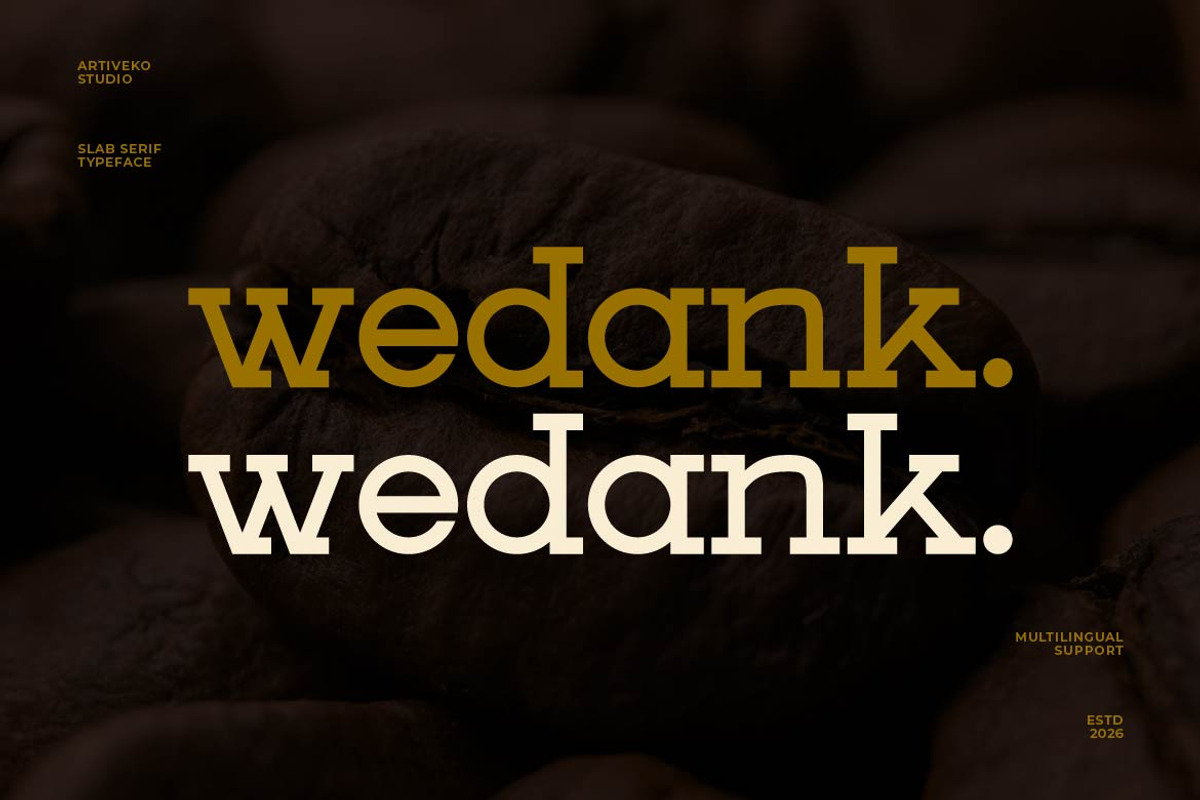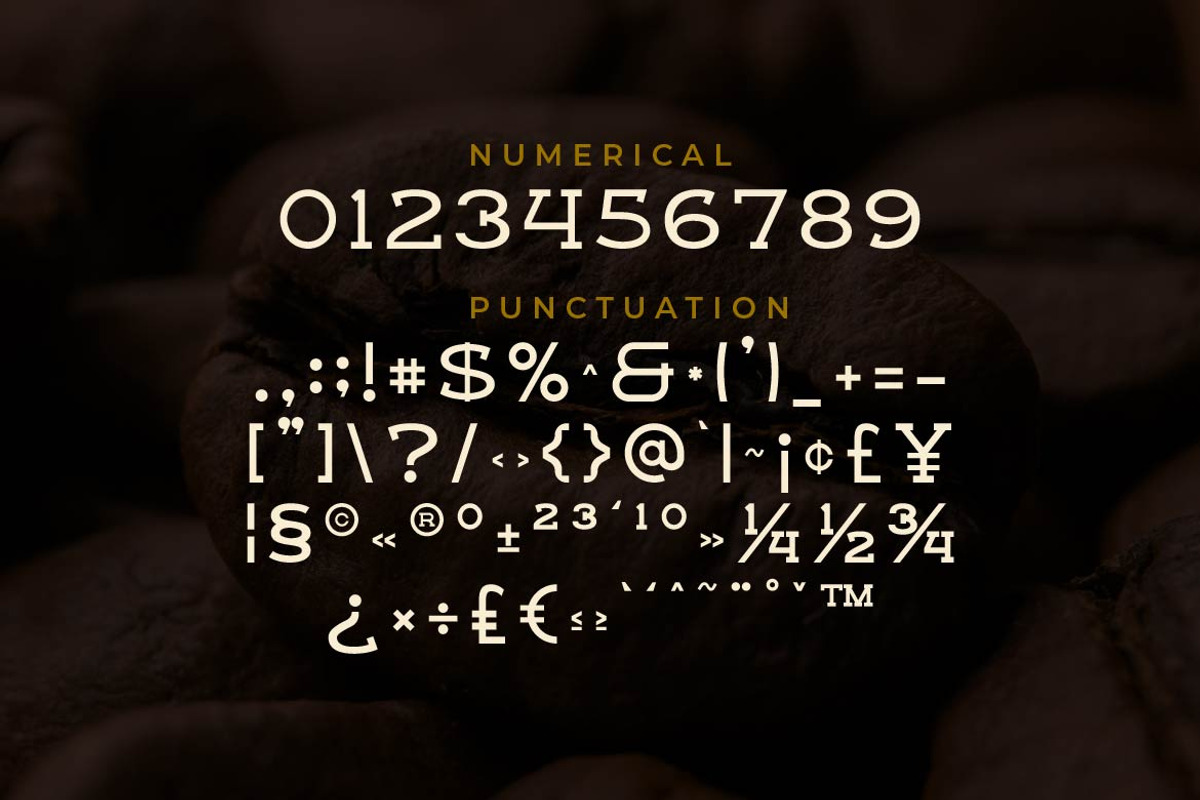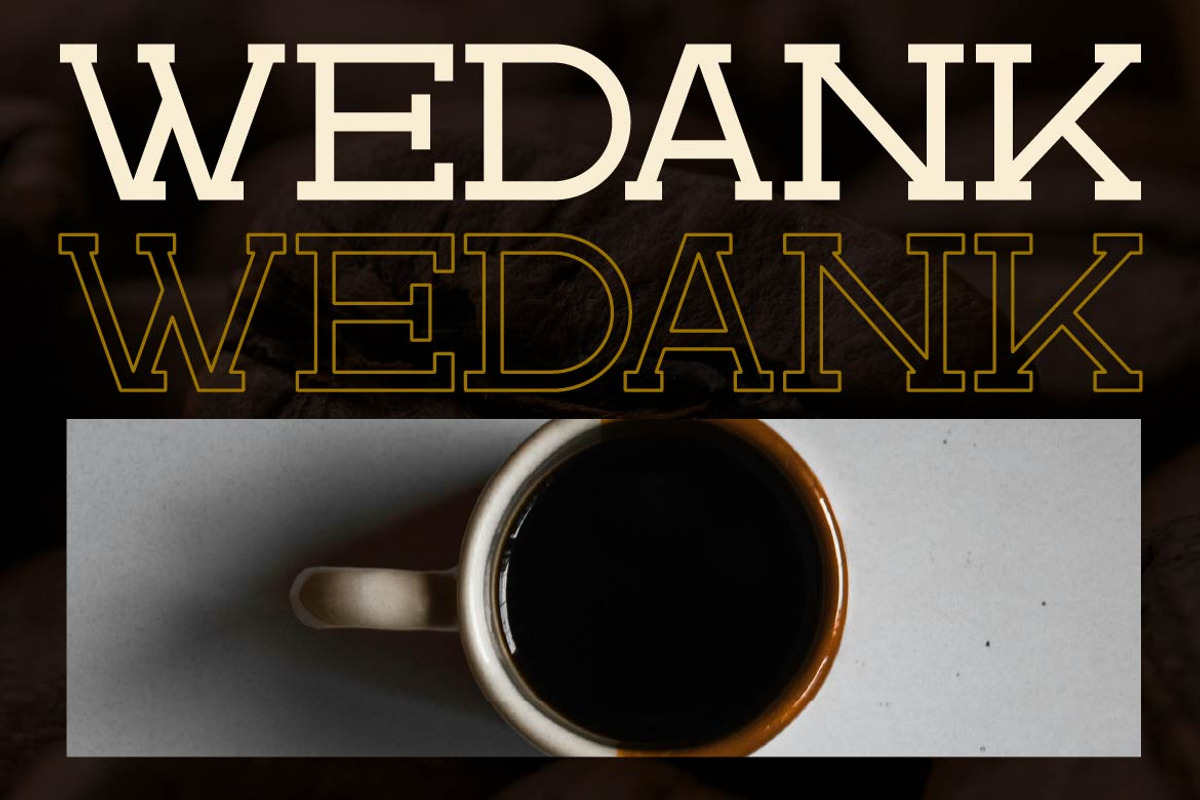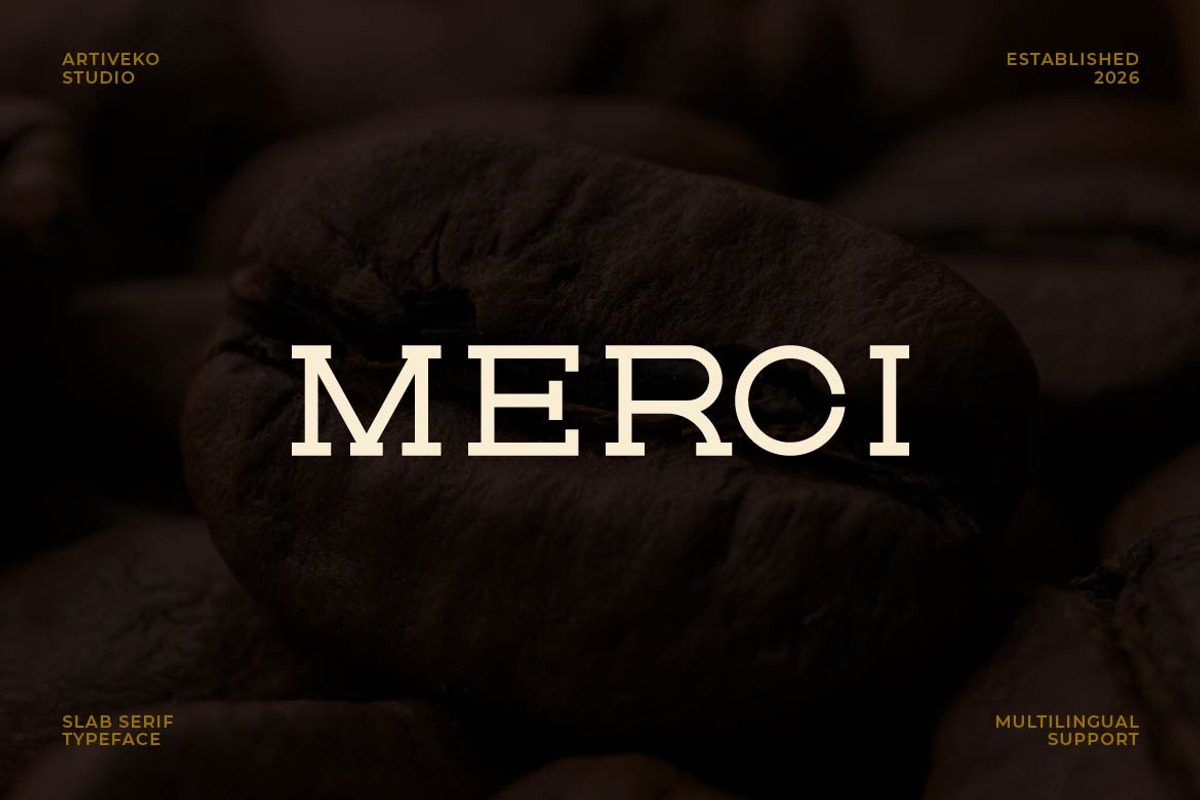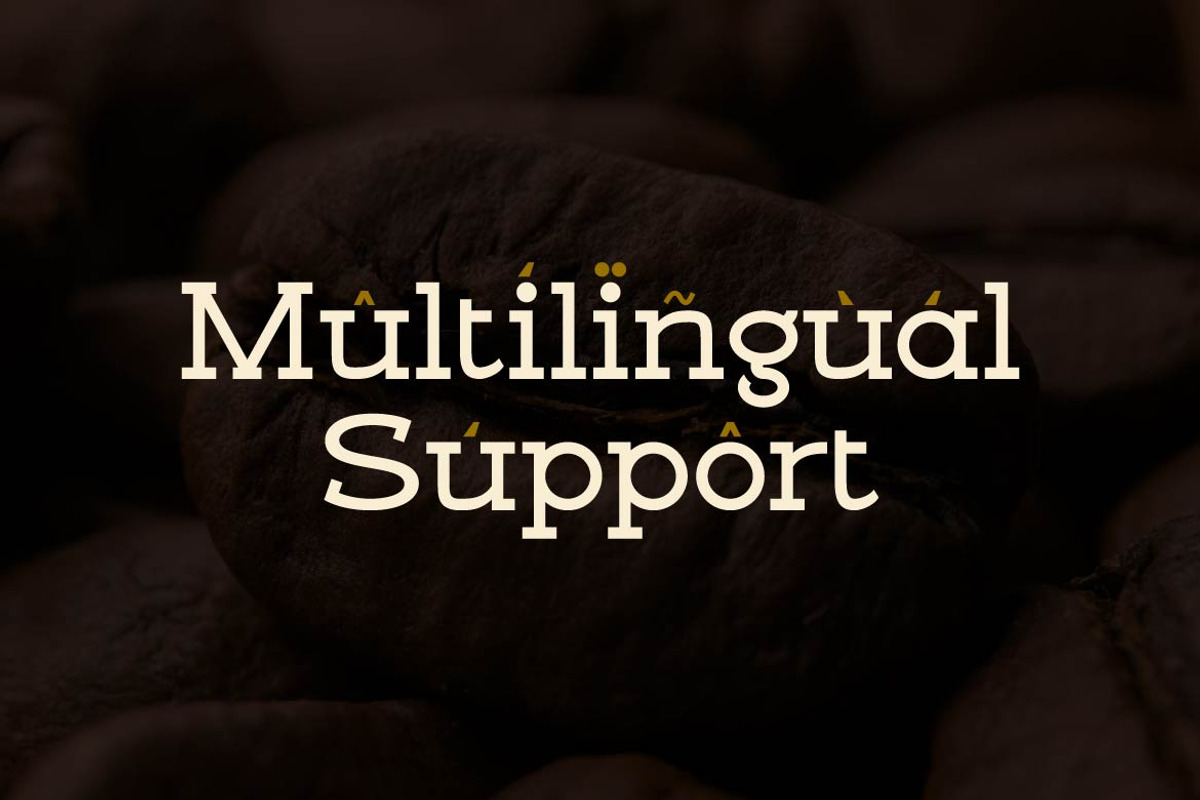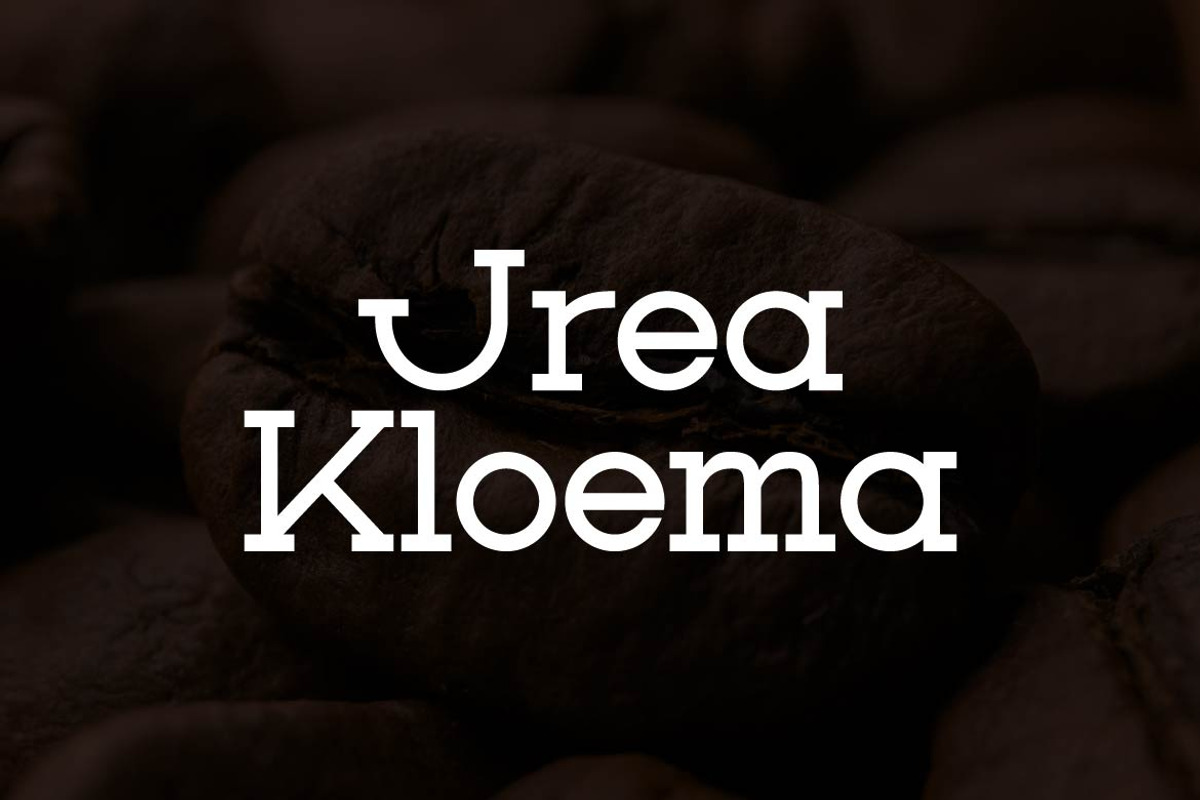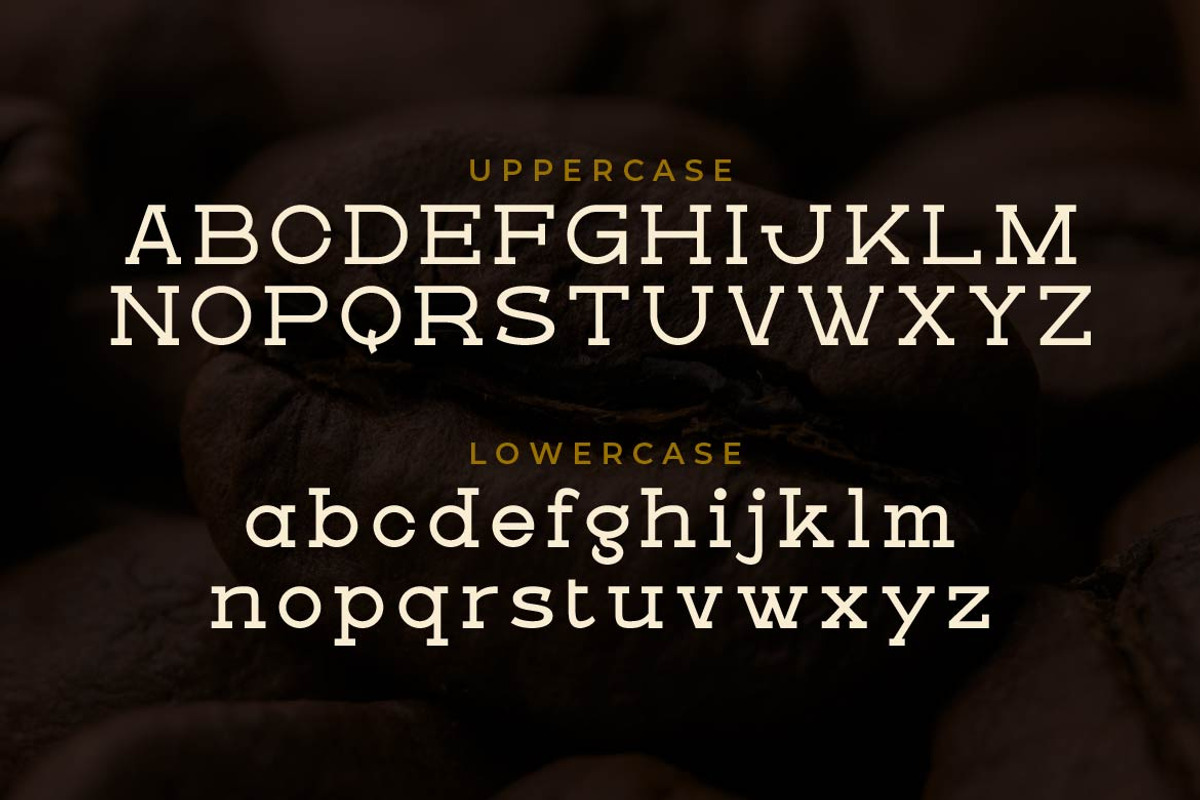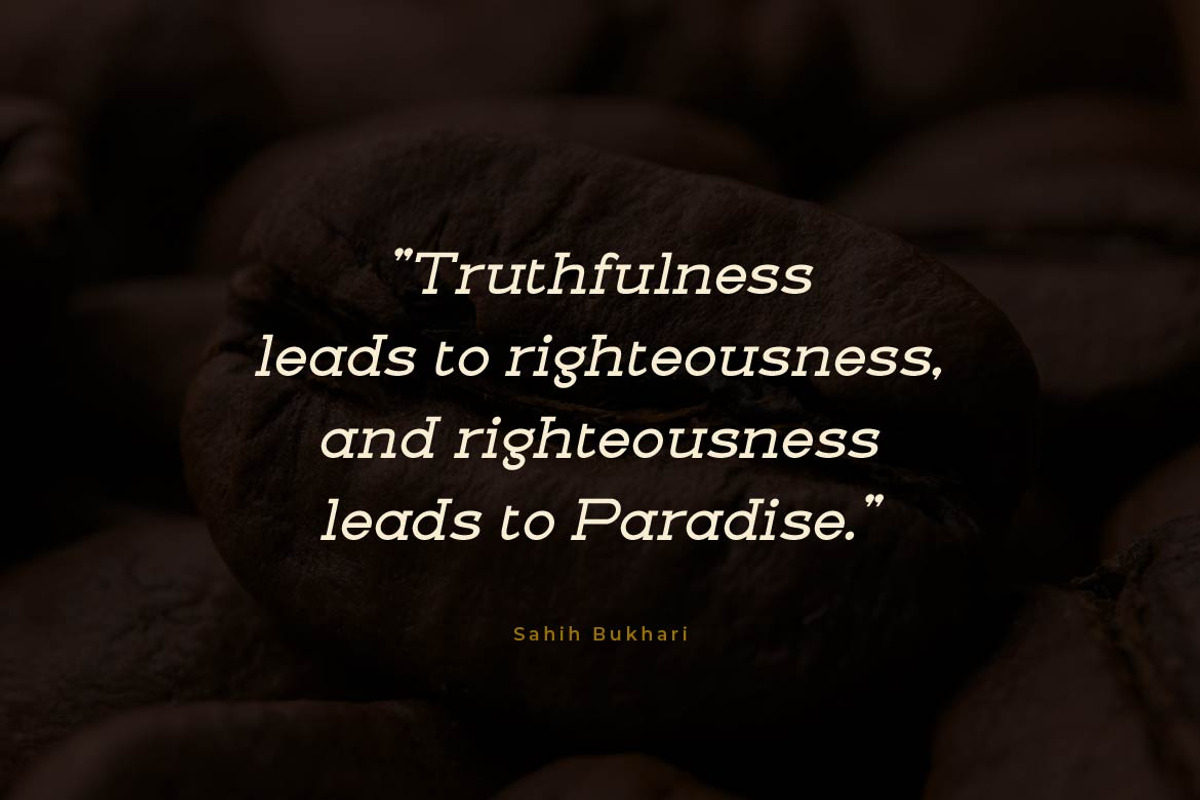
Wedank – Contemporary Slab Font
Wedank is a premium slab serif typeface that blends strength with refined elegance. Featuring solid slab serifs, balanced proportions, and carefully crafted letterforms, Wedank delivers a bold yet sophisticated presence in modern design.